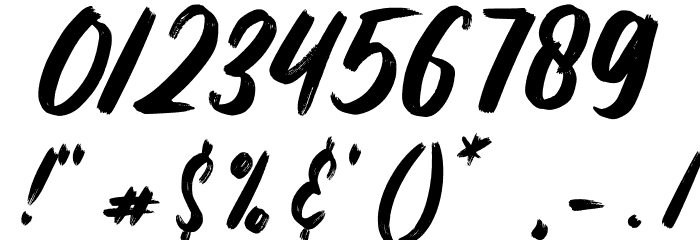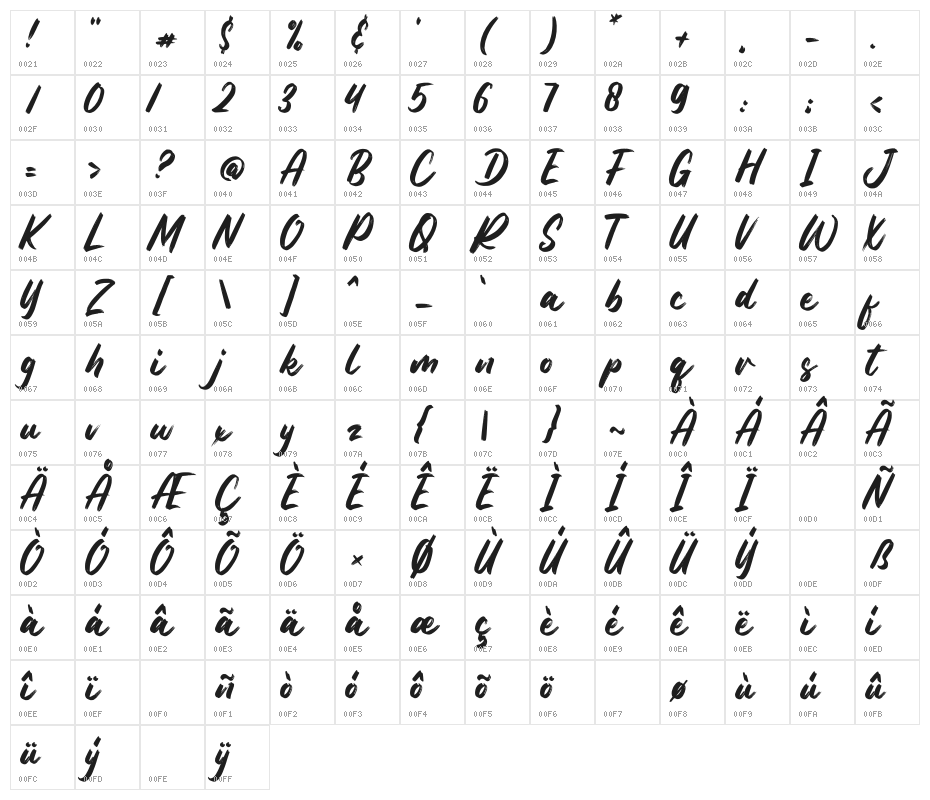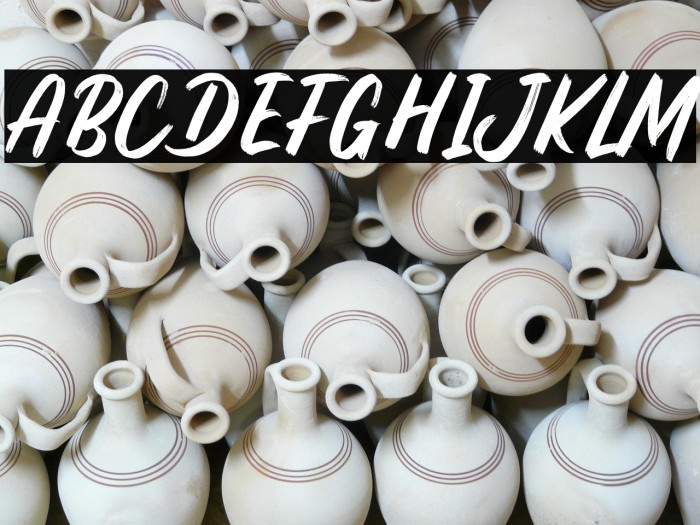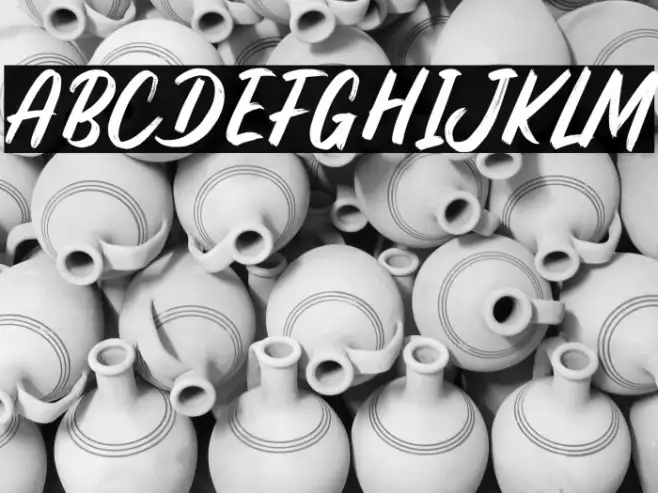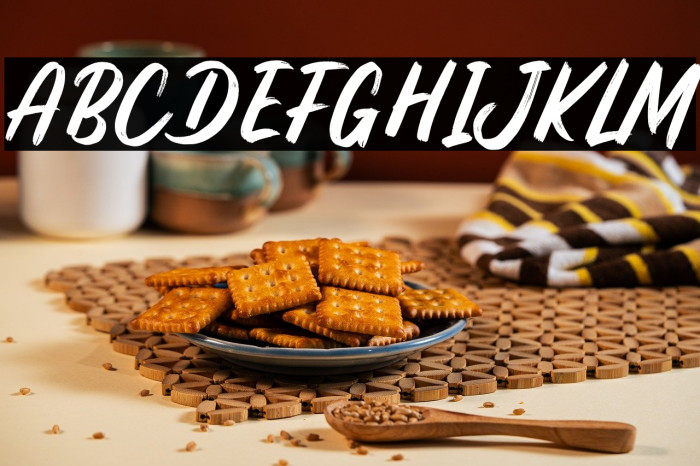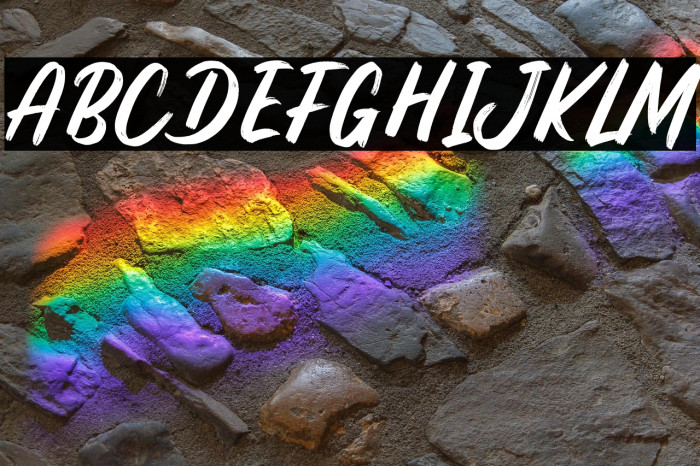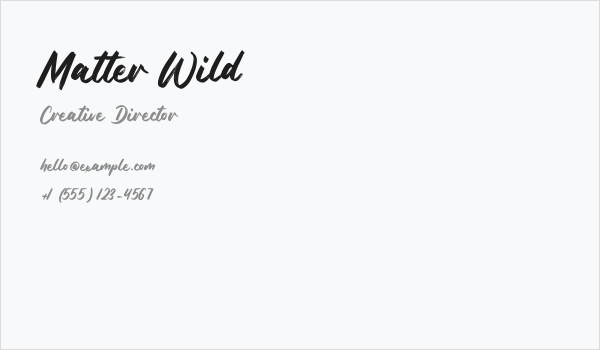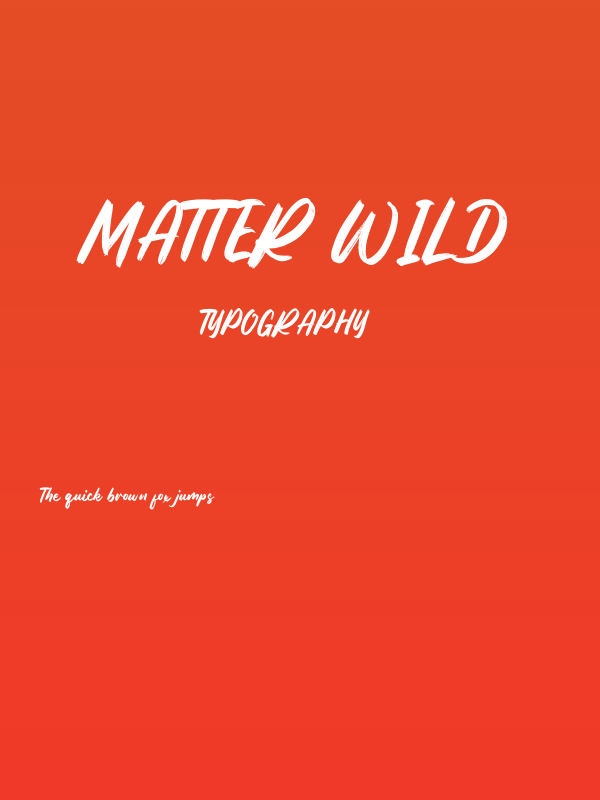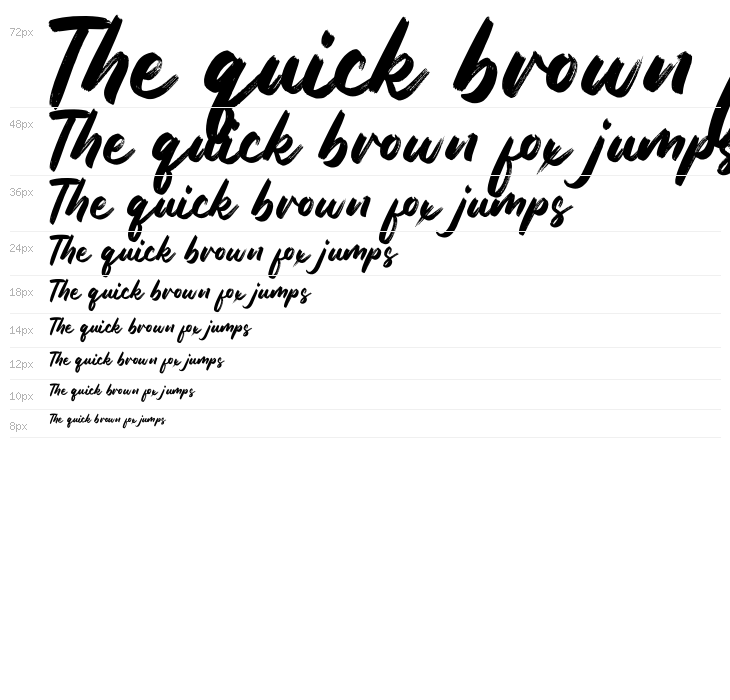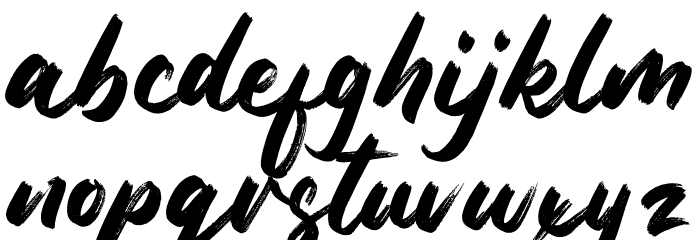
Matter Wild Font
Matter Wild Description
This font exudes a bold and energetic style, characterized by its brush-like strokes that give it a dynamic and artistic flair. The uppercase and lowercase letters maintain a consistent flow, with each character showcasing a sense of movement and spontaneity. The numbers and special characters follow the same expressive style, making the font ideal for creative and eye-catching designs. The strokes vary in thickness, adding a textured appearance that enhances its visual impact. This font is perfect for projects that require a touch of creativity and boldness.
| Proposed Projects | Ideal for posters, branding, logos, and creative design projects that require a bold and artistic touch. |